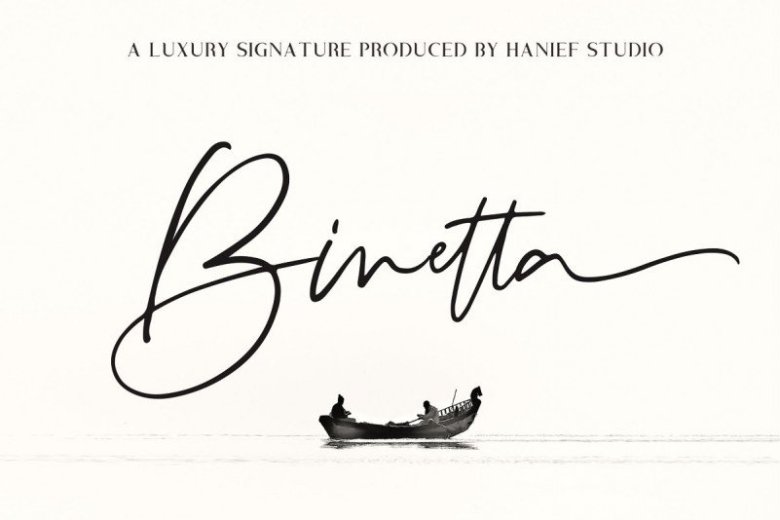
Binetta Signature Font
This is signature handwritten font with sophisticated and stylish handwritten, classy handwritten font that designed for minimalist design projects. Binetta Signature will handle your minimalist design project with simplicity, It’s designed and shared by Hanief Studio. Binetta Font is a modern feminine font, every single letter has been carefully crafted to make your text look beautiful. With a modern script style this font will be perfect for many different projects ex: photography, watermark, quotes, blog header, poster, wedding, branding, logo, fashion, apparel, letter, invitation, stationery, etc.